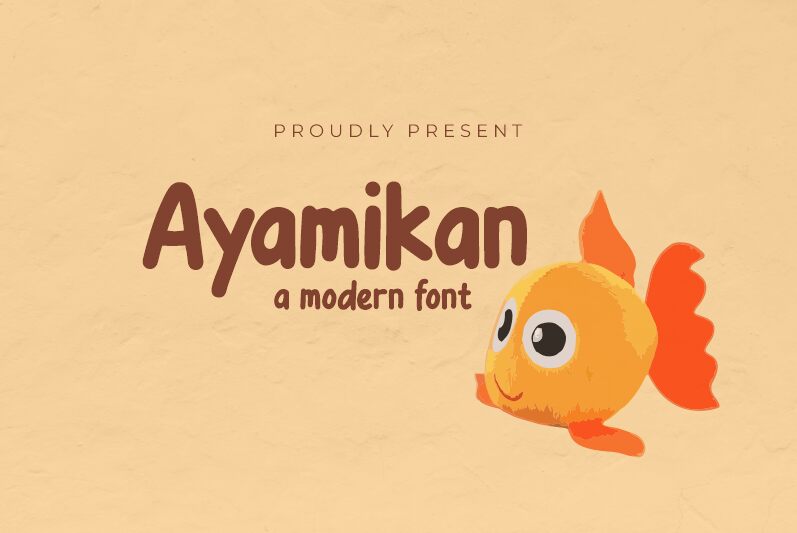
Ayamikan font, crafted by Fontoast Studio, embodies a delightful handwritten style that radiates warmth and personality. Its expressive curves and playful strokes evoke a sense of creativity and spontaneity, making it stand out in any design context. The font's distinct lightness gives it an airy quality, while certain letters exhibit a charming exaggeration that adds character.
Ideal for branding projects, invitations, or any application seeking to convey a casual yet stylish feel, Ayamikan effortlessly captures attention. Whether used for social media graphics or artisanal product labels, its unique flair ensures your message is both memorable and inviting. Embrace the artistry of Ayamikan to elevate your typography with charm and individuality.